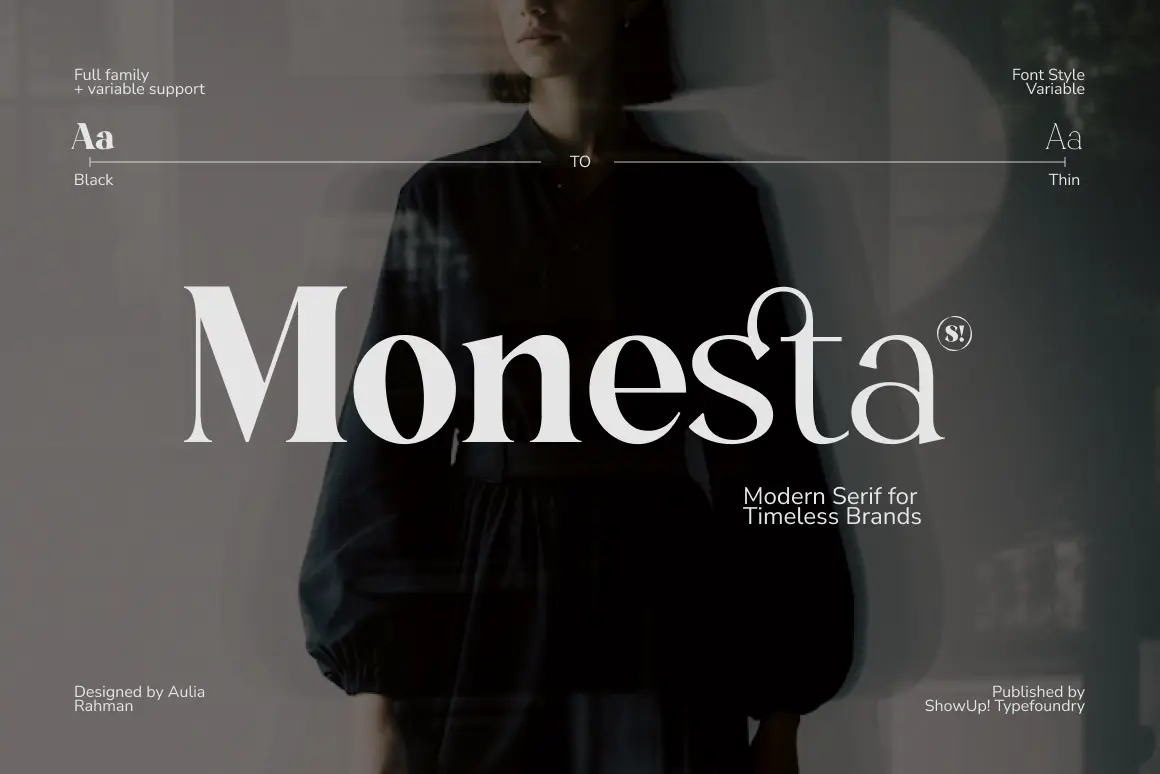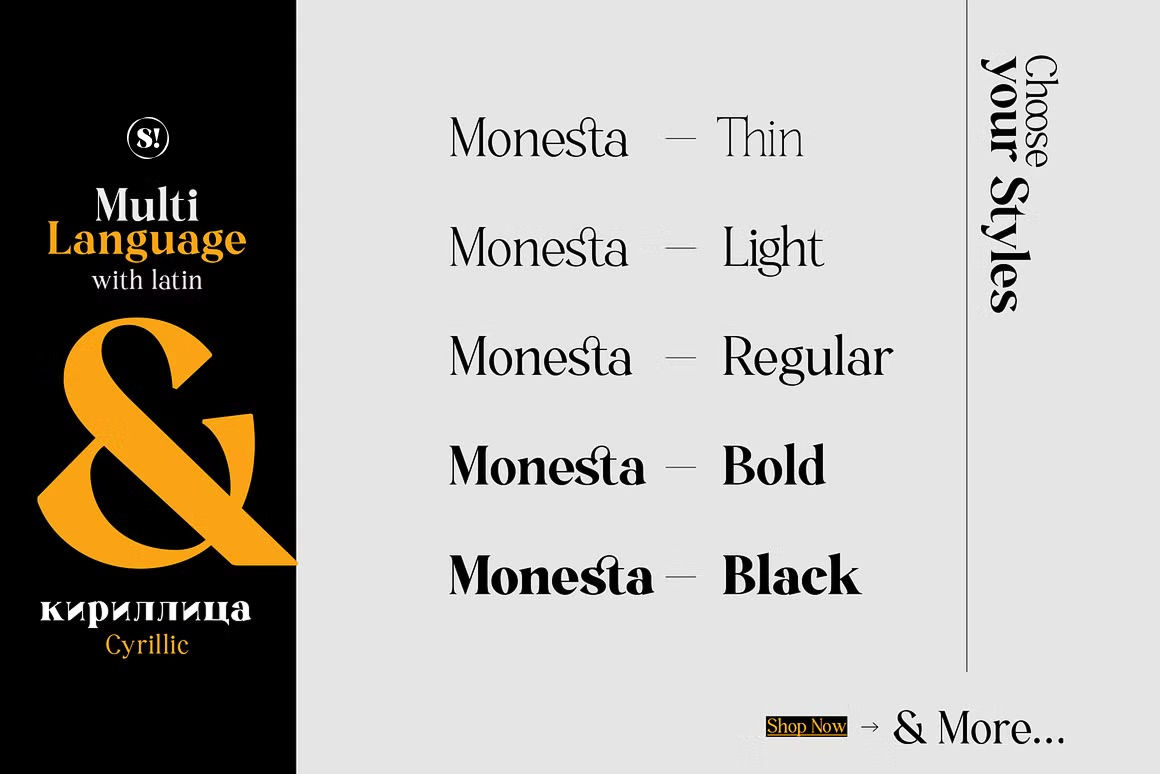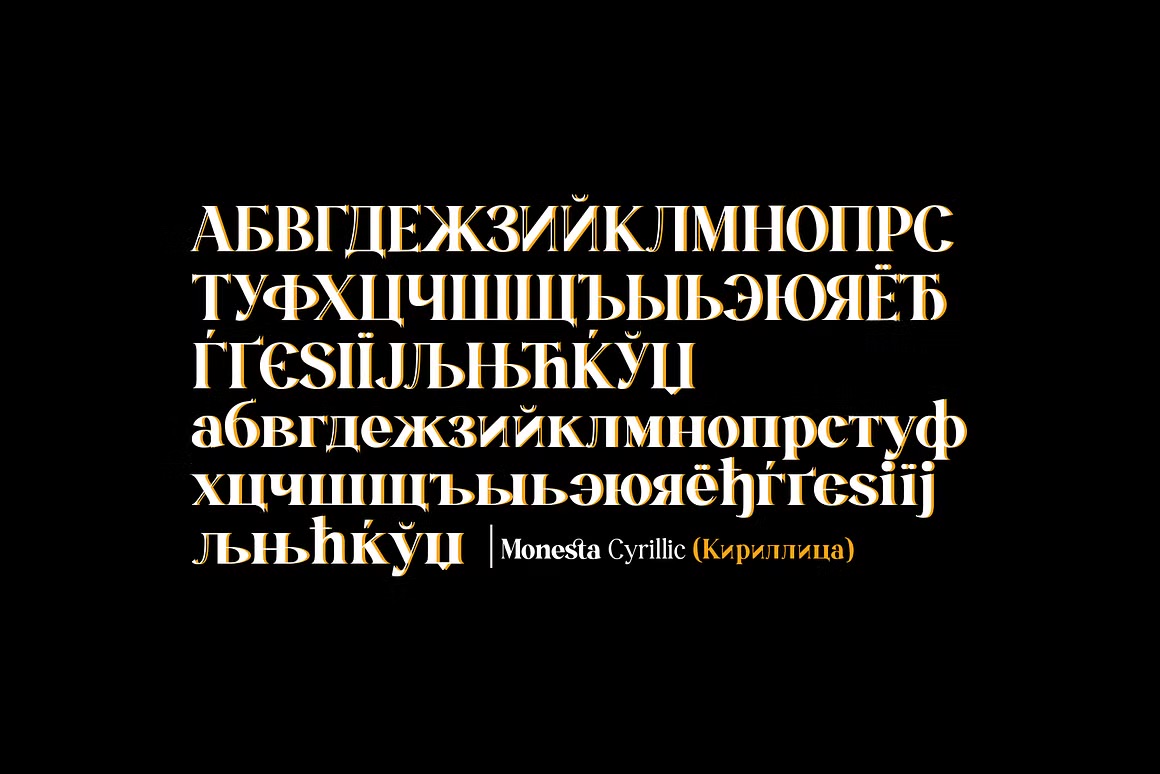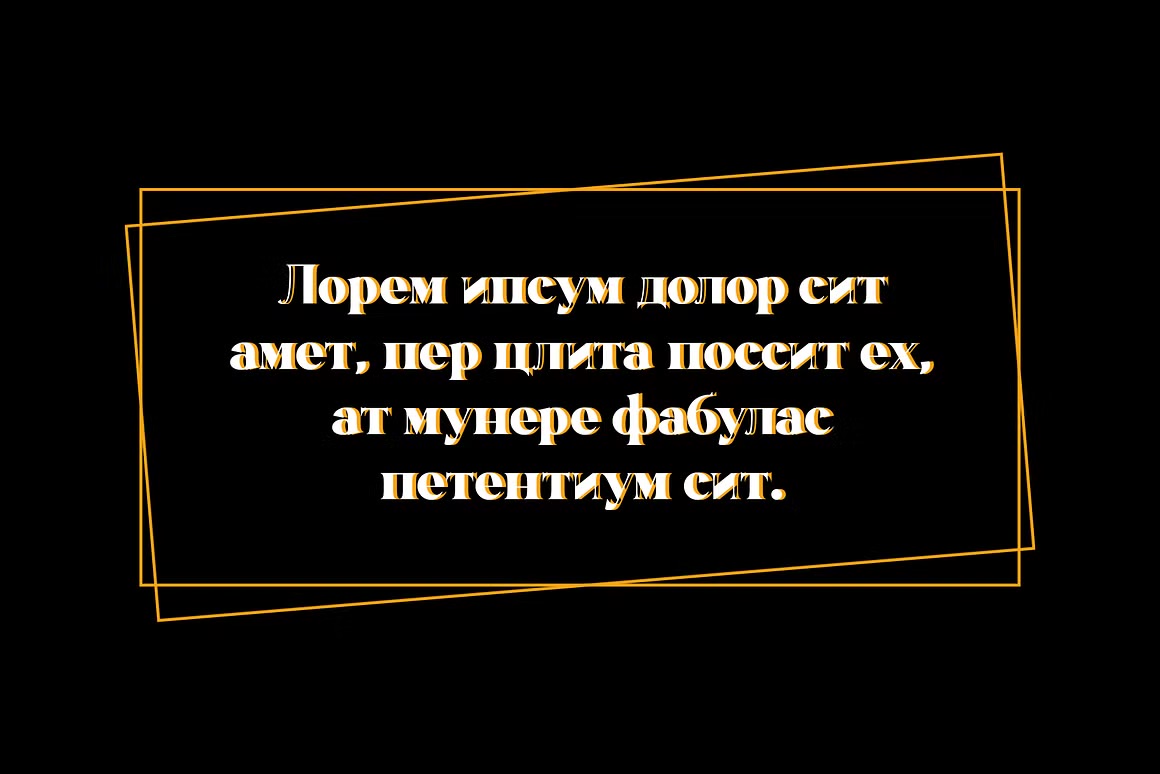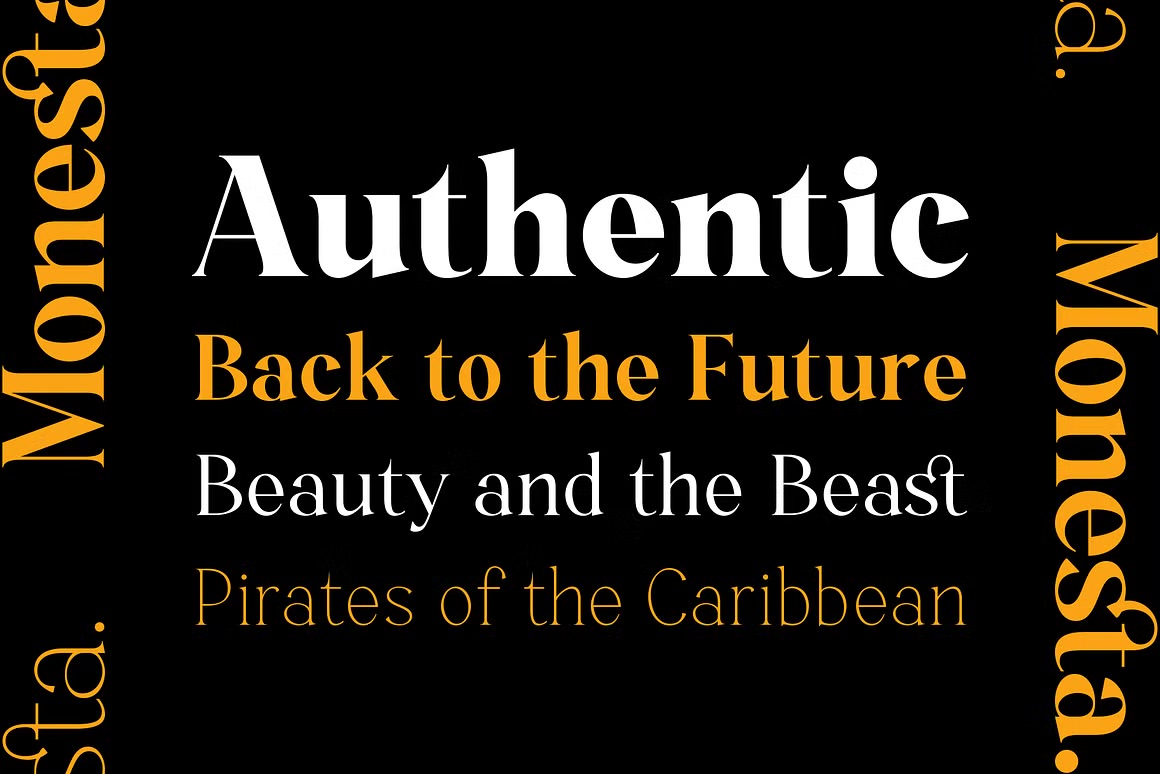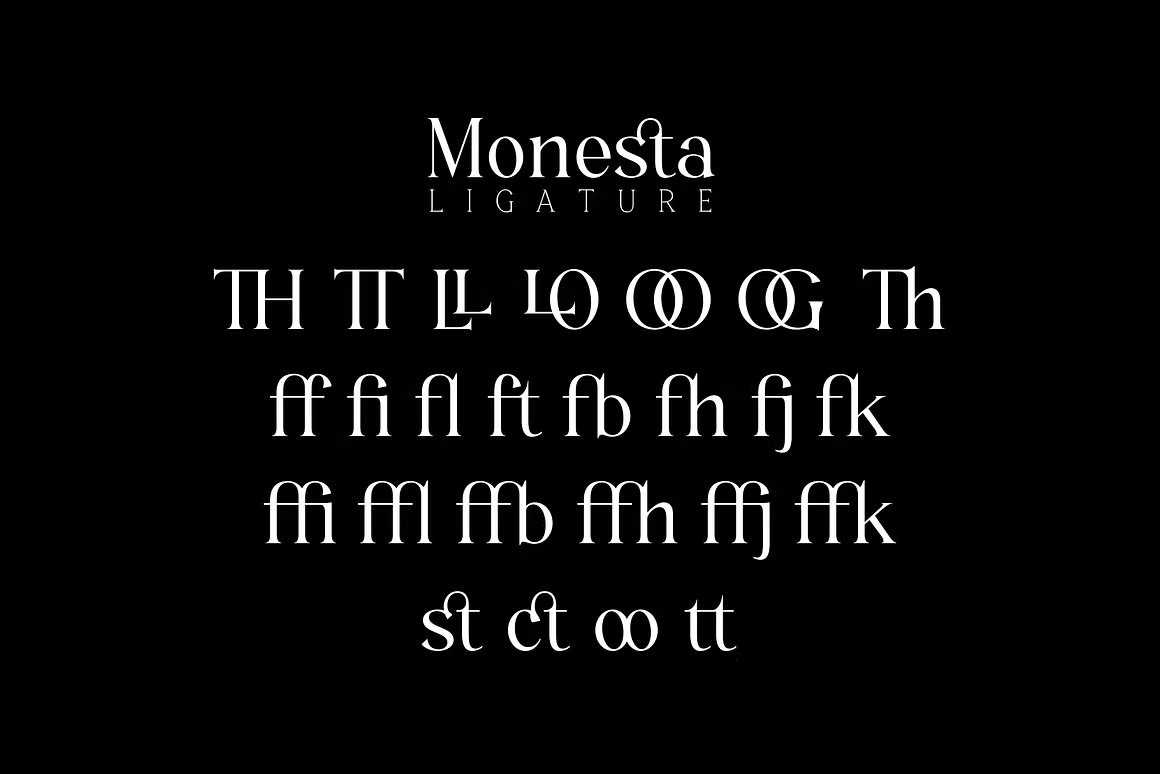
Monesta is a modern serif font family with a confident and smooth style. Designed by Aulia Rahman, Monesta creates a sense of softness and expressiveness. The font’s usability-focused design makes it a bold tool and beautiful communicator. Monesta variable allows for design across 9 weights, major Latin-based languages, and Cyrillic. Monesta’s energy and suitability for modern design make it a versatile and powerful font family. 9 weights, major Latin-based languages, and Cyrillic”: This indicates that Monesta is a very versatile font family, as it can be used in a wide variety of languages.
Monesta has a wide range of weights and styles, from thin to black, and variable font.